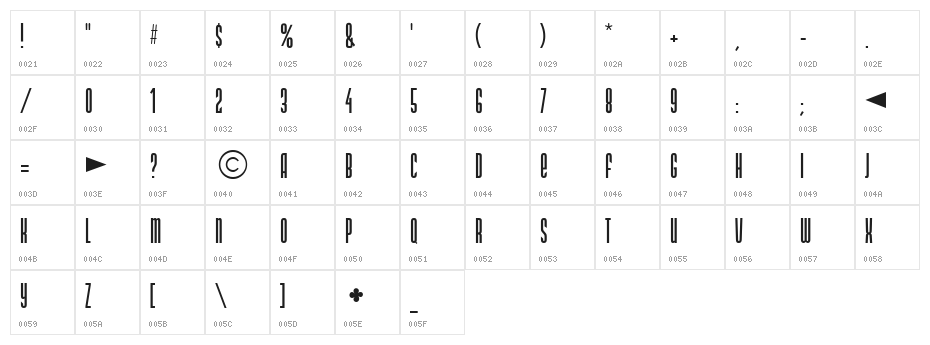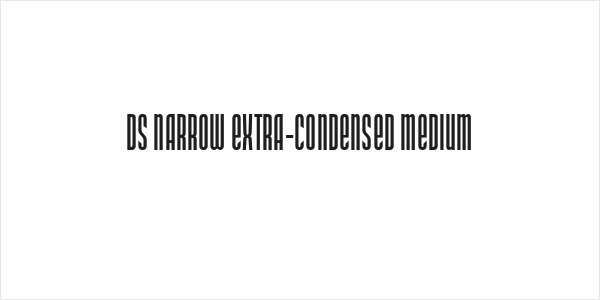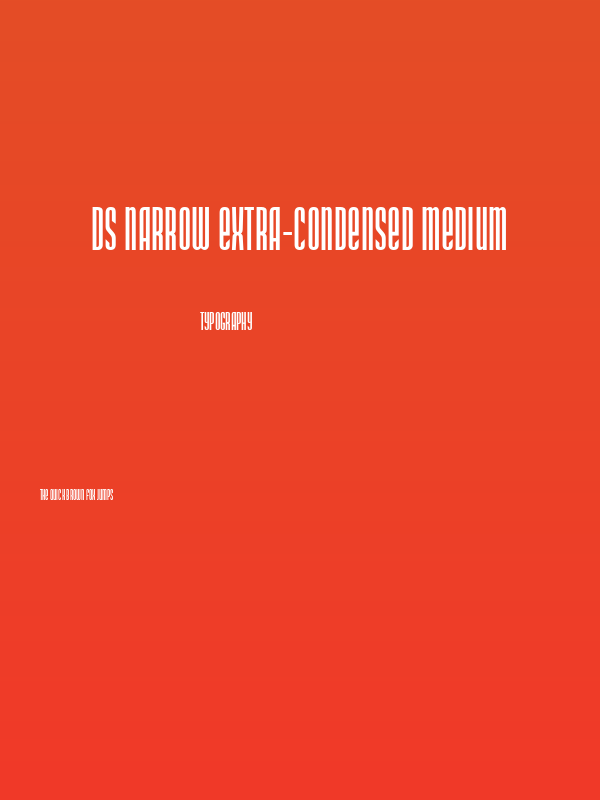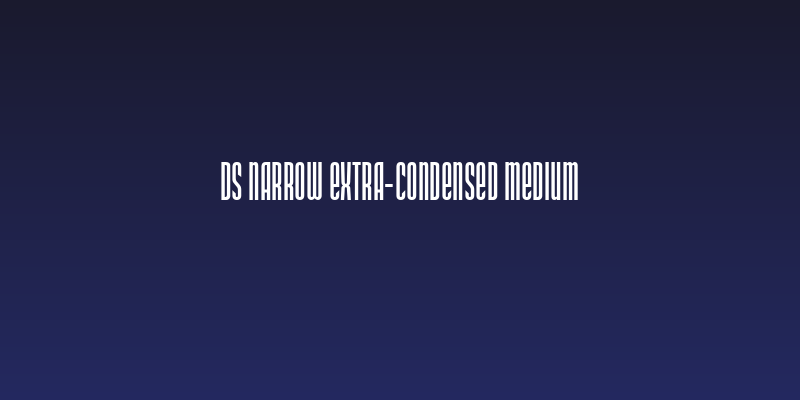
DS Narrow Extra-condensed Medium Font
DS Narrow Extra-condensed Medium Description
This font features a highly condensed and narrow design, characterized by tall, elongated letterforms that create a striking vertical emphasis. The uniform stroke width gives it a clean and modern appearance, while the lack of serifs adds to its streamlined look. The uppercase and lowercase letters maintain consistent proportions, enhancing readability despite the condensed style. The numerals and special characters are designed to match the overall aesthetic, ensuring a cohesive appearance across all text elements.
| Proposed Projects | Ideal for use in headlines, posters, and branding where space is limited but impact is essential. |